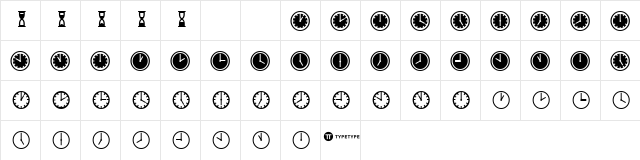
TictacOne Regular
Design Context for TictacOne Typeface
TictacOne is a composed and adaptable typeface that performs quietly and consistently across a wide range of design contexts.